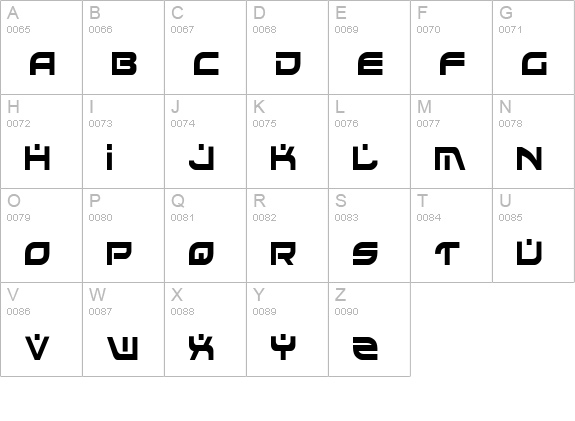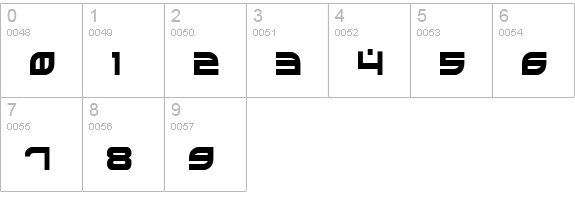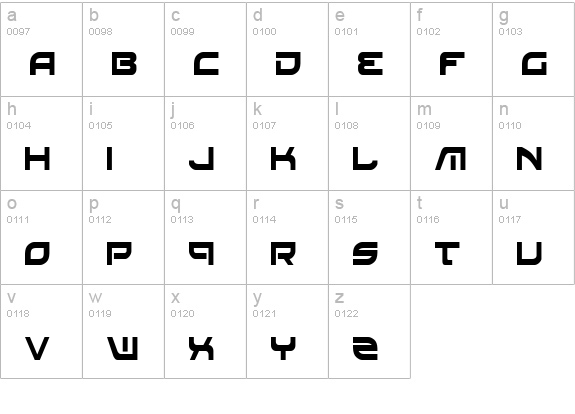
Battlefield Condensed is a distinctive, condensed-width variant in the Battlefield typeface family \xE2\x80\x94 well suited to design and typography projects.
Battlefield Condensed font is a modern and sleek typeface that exudes strength and boldness. With its sharp edges and streamlined design, this font is perfect for emphasizing important text or creating a striking visual impact. The condensed style adds a sense of urgency and efficiency to any project, making it ideal for headlines, titles, and branding materials. What's even better is that Battlefield Condensed font is available for free! You can easily download it at FontsMarket.com and start using it in your designs right away. Don't miss out on this versatile and eye-catching font that will elevate your projects to the next level.